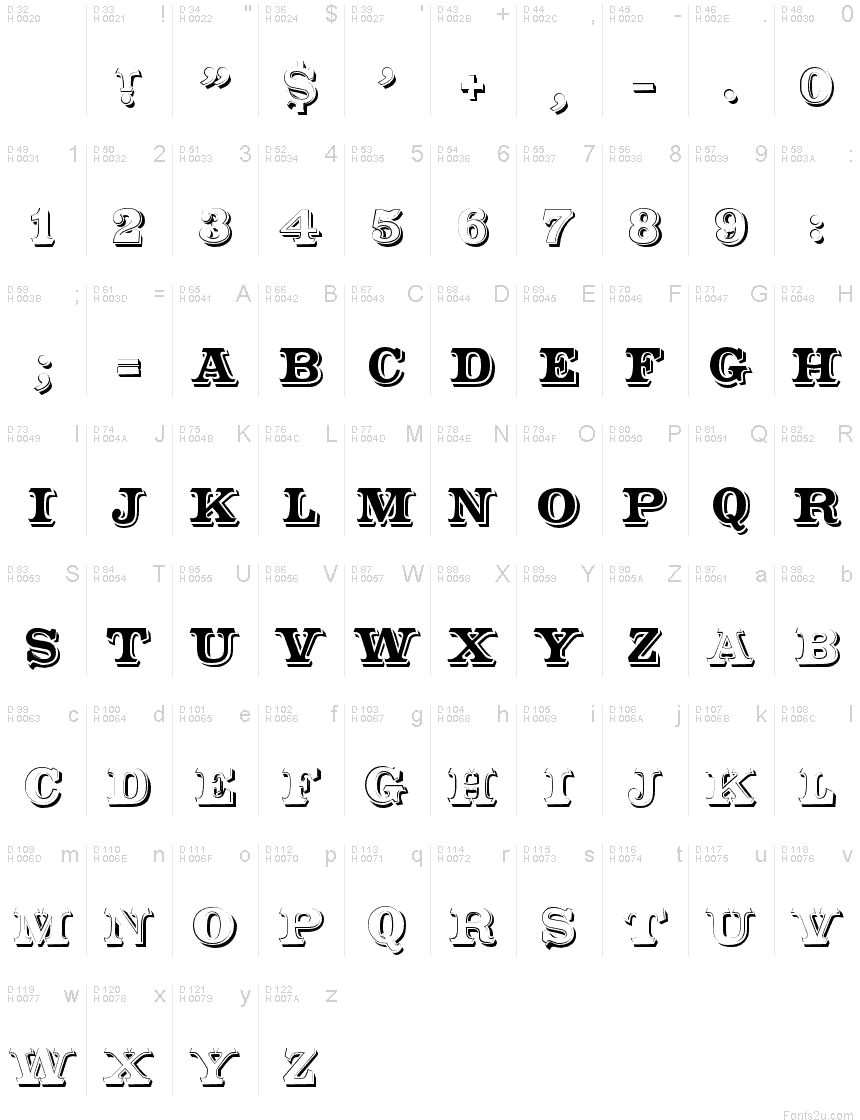
Cameo Antique is a free outlined Western display font with broad slab serifs and the theatrical swagger of nineteenth-century show lettering. Its capitals combine strong vertical weight, pinched inner curves, and a layered drop shadow that makes every word resemble carved or painted storefront signage.
Designers working in country music, rodeo, or heritage retail will find it well suited to posters, packaging, event graphics, venue signage, and album cover art. The outlined faces can echo engraved borders, vintage label ornaments, and illustrated shop signs, letting the lettering become part of the period artwork instead of serving as a neutral caption.
CameoAntique is on page 17 of the Solotype Catalog
CameoAntique is the Outline Shadow version of NightShade. This font was produced by modifying Soft Horizon's NigelSade